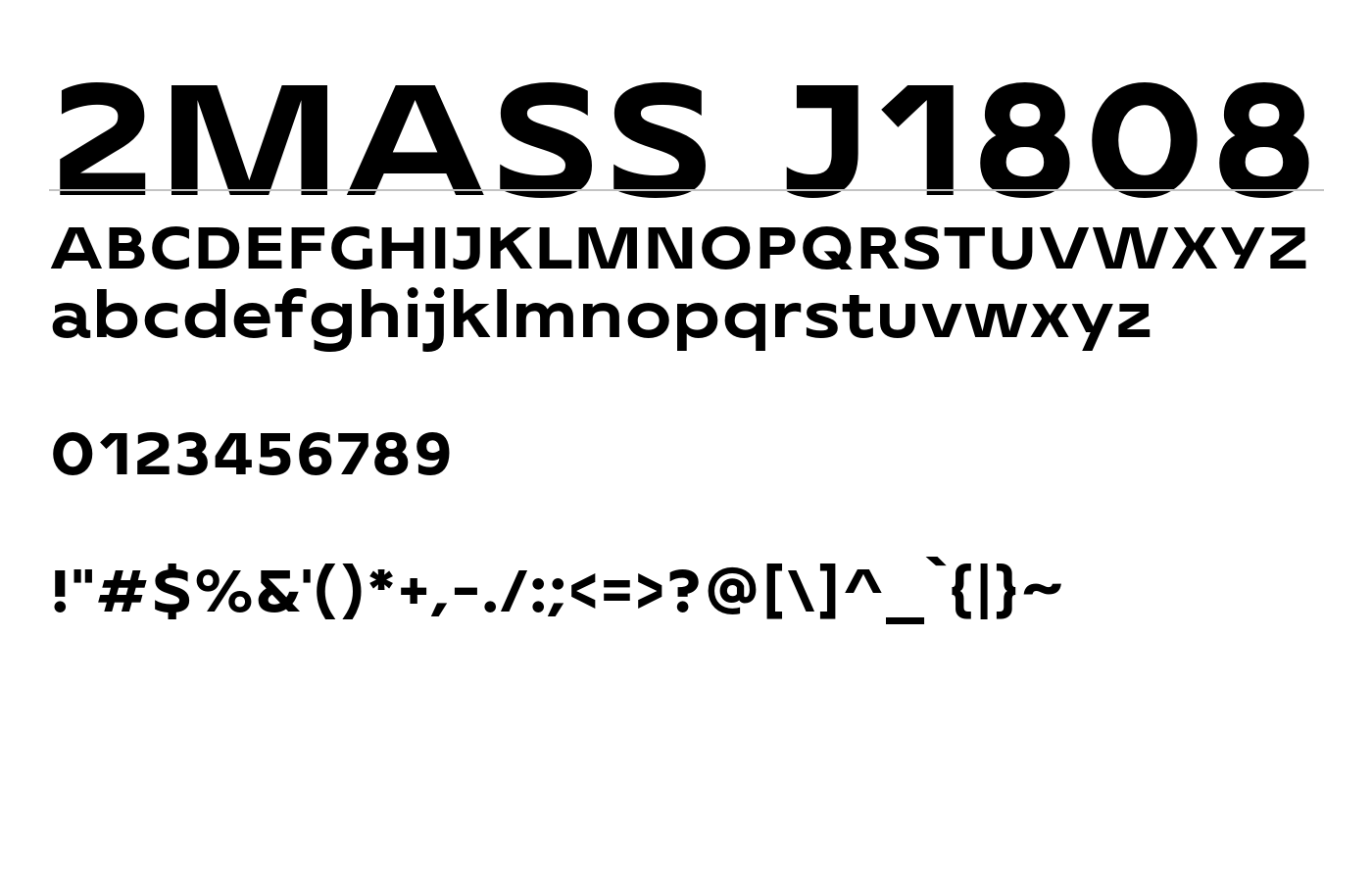
2MASS J1808 is a clean and modern sans serif font characterized by its strong, bold weight and balanced proportions. With a wide x-height and geometric stroke construction, it offers excellent readability and a neutral yet authoritative presence, making it ideal for branding, headlines, and digital use. Its straightforward design communicates clarity and professionalism, fitting well in tech, corporate, and editorial contexts.
2MASS J1808 Font
About 2MASS J1808 Font
| Designer | Igor Kosinsky |